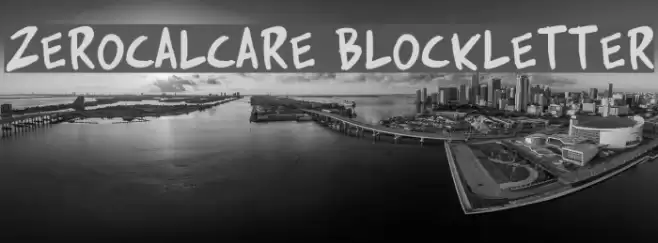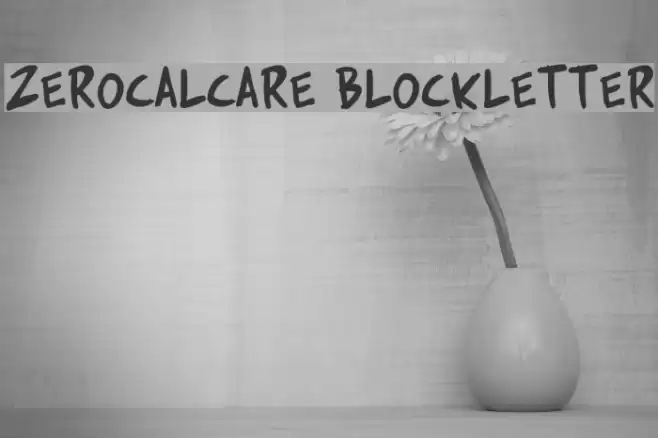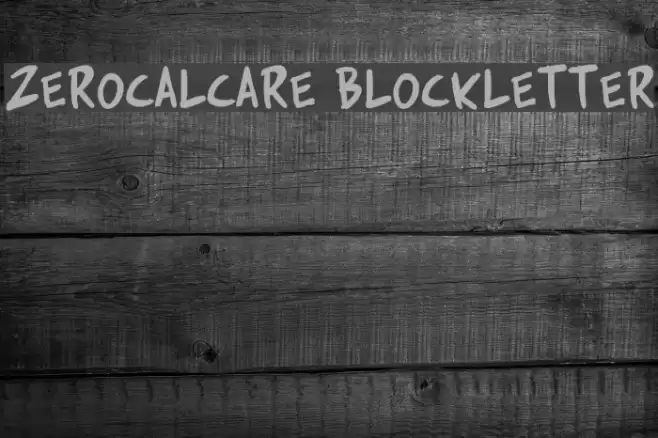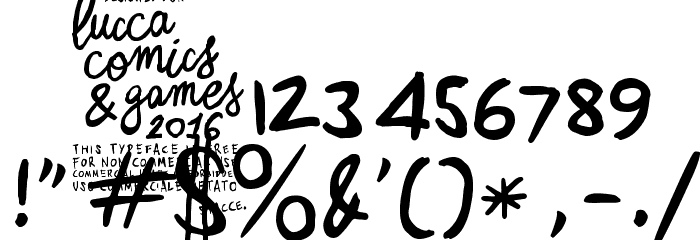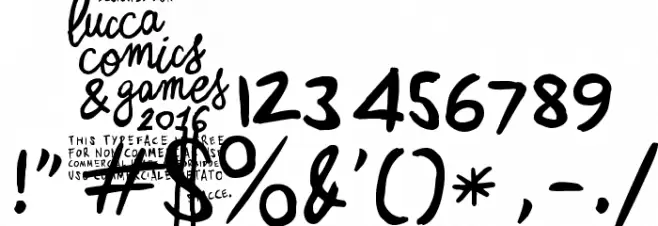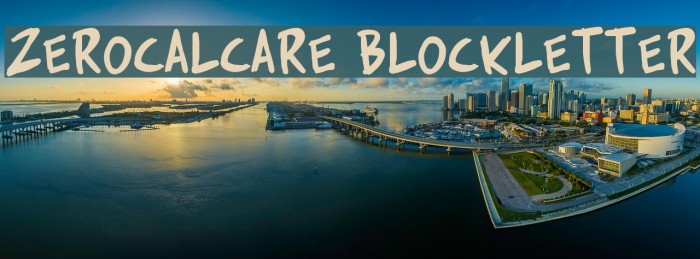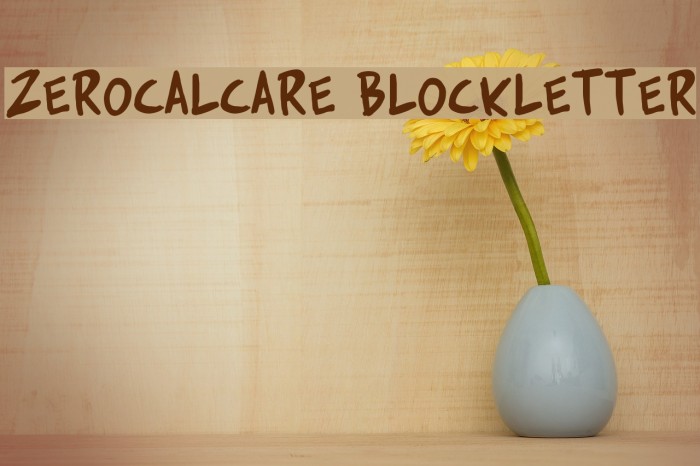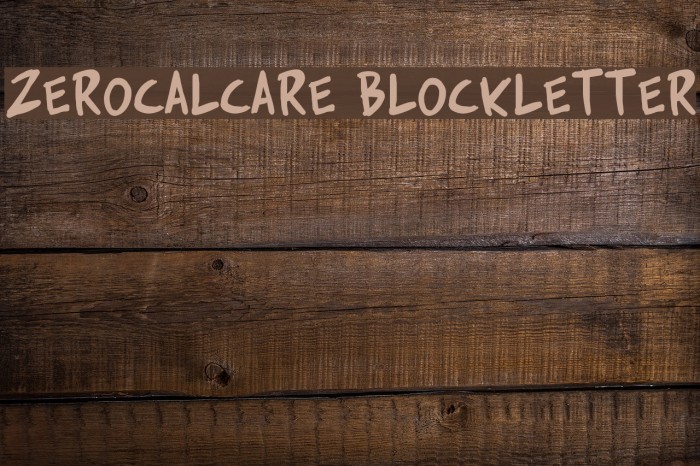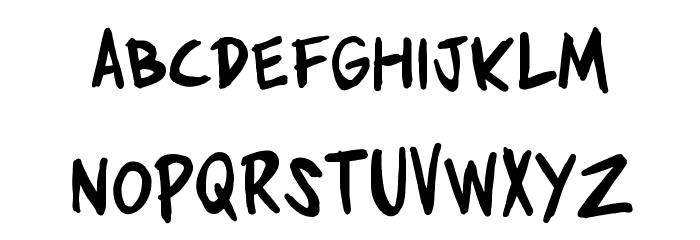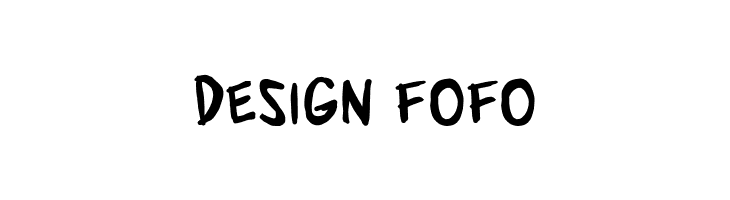
Zerocalcare Blockletter Font
Zerocalcare Blockletter Description
This font features a bold, hand-drawn style with a playful and informal appearance. The letters are slightly irregular, giving it a casual and approachable feel. The uppercase and lowercase letters maintain a consistent style, with rounded edges and a slightly slanted orientation. The numbers and special characters follow the same aesthetic, ensuring uniformity across all characters. This font is reminiscent of comic book lettering, making it ideal for projects that require a fun and lively touch.
A bold, hand-drawn font with a playful, comic book style from Handwritten fonts.
- Proposed Projects: Ideal for comic books, children's books, posters, and informal branding.